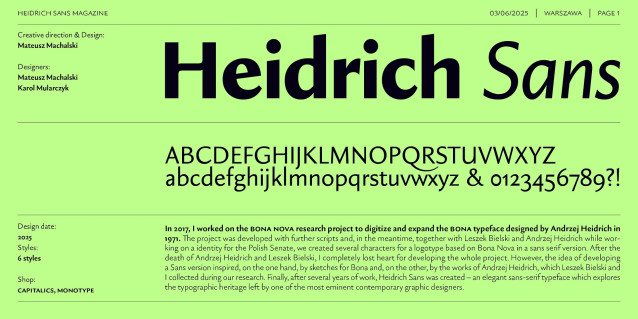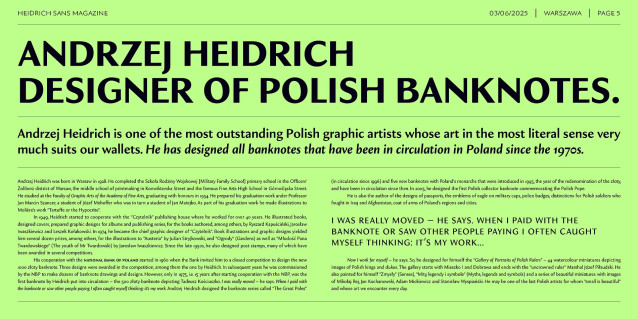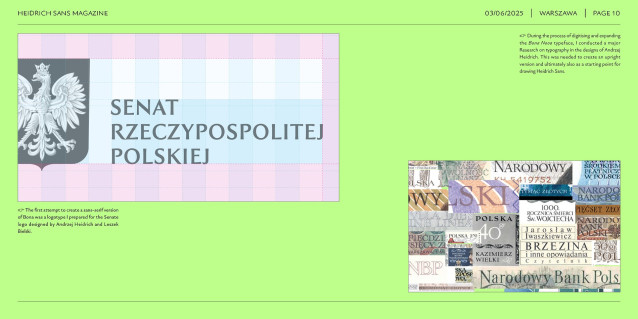
Heidrich Sans Font Family
Heidrich Sans Font Family – an elegant sans-serif typeface that explores the typographic legacy left by one of the most prominent contemporary graphic designers.